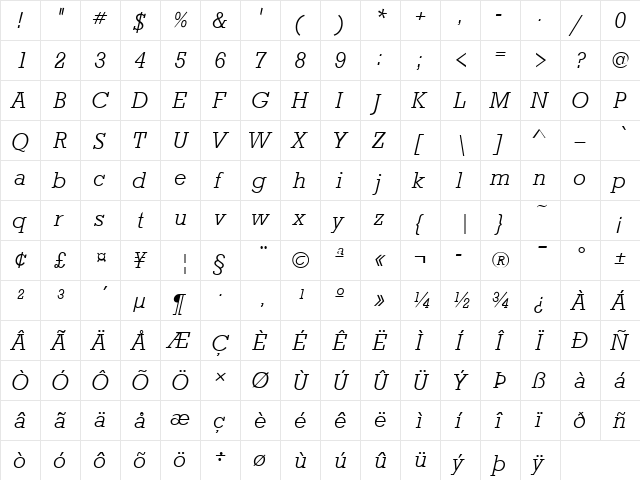
StaffordLH Italic
Design Context for StaffordLH Typeface
StaffordLH is a composed and adaptable typeface that performs quietly and consistently across a wide range of design contexts. The dynamic lean of this cut emphasises speed and emphasis in any layout.
Pro Tip: Use StaffordLH for emphasis, pull quotes, and subheadings where its slanted energy can add rhythm to the layout.